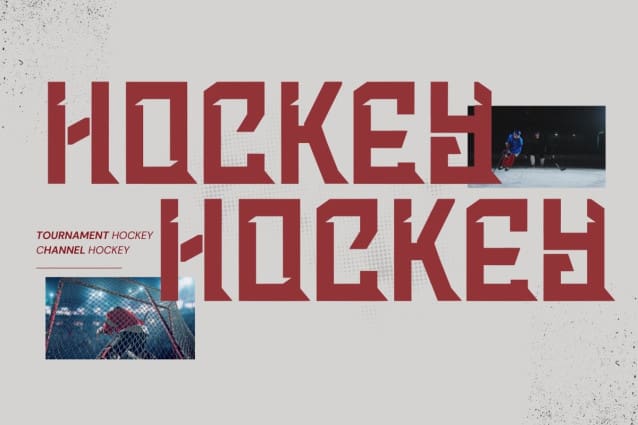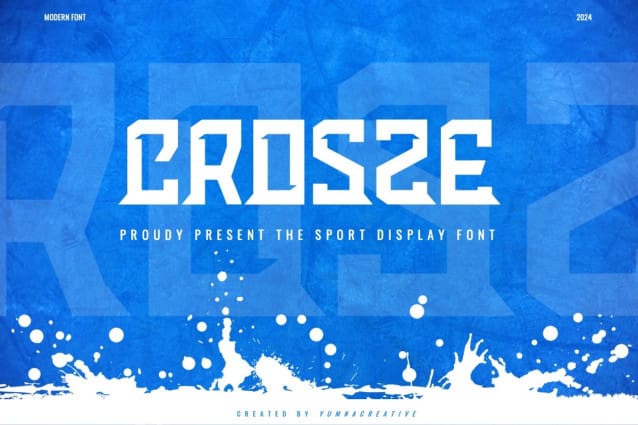
Crosze Sport Font
Crosze Sport Font, this bundle features strong, confident and powerful typefaces designed to work great with sports logos, club branding, apparel applications, labels and more.